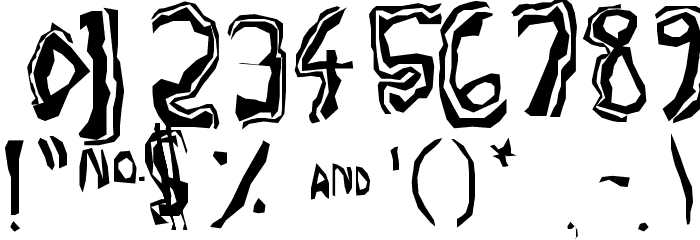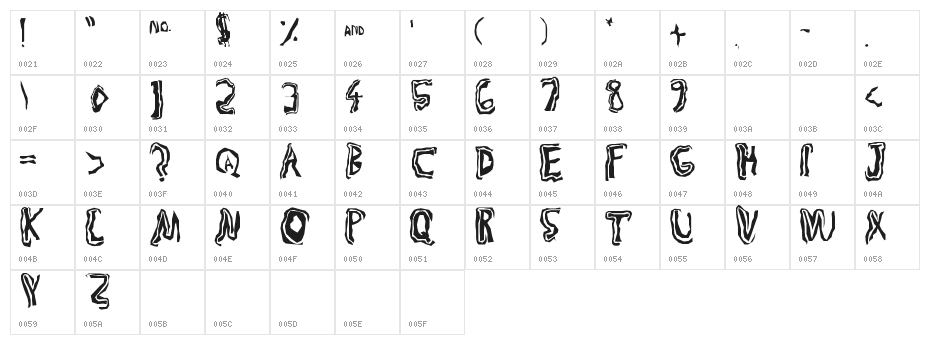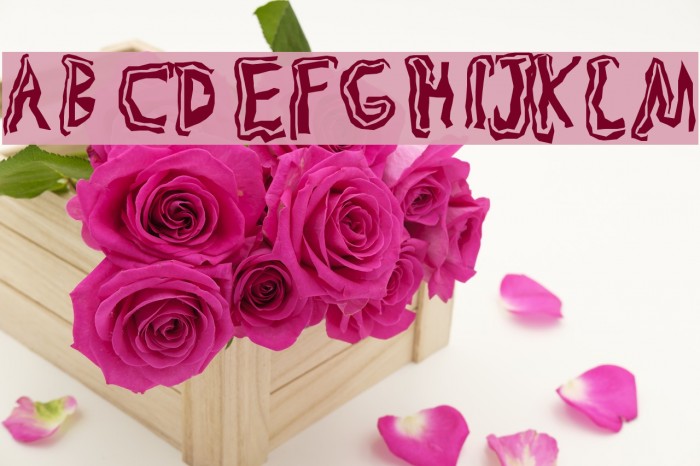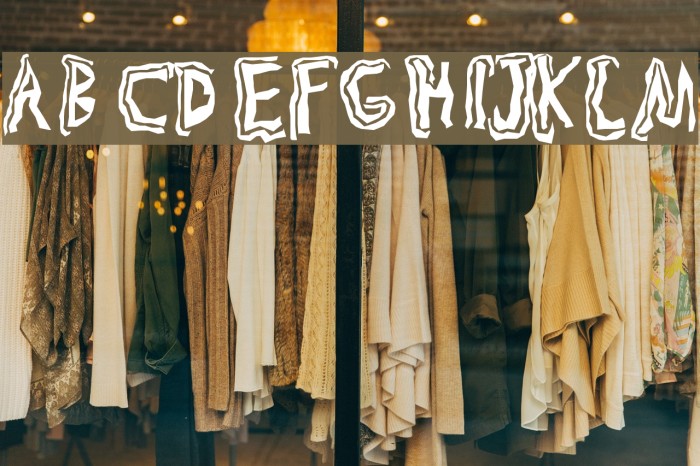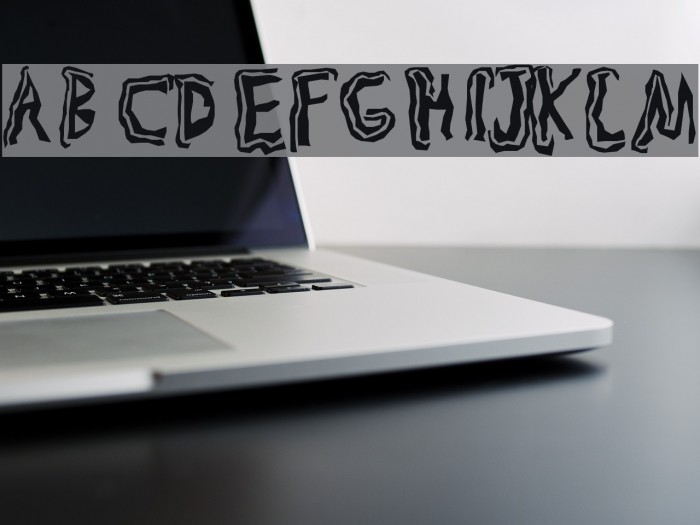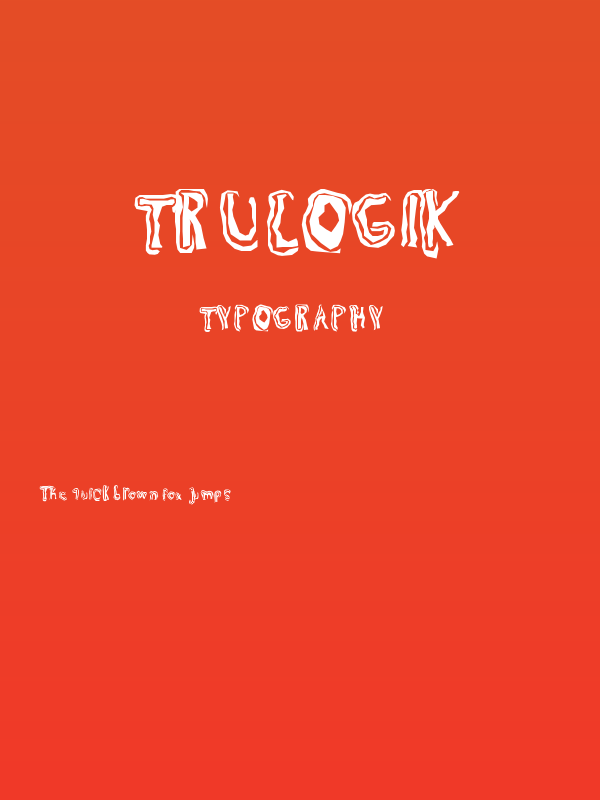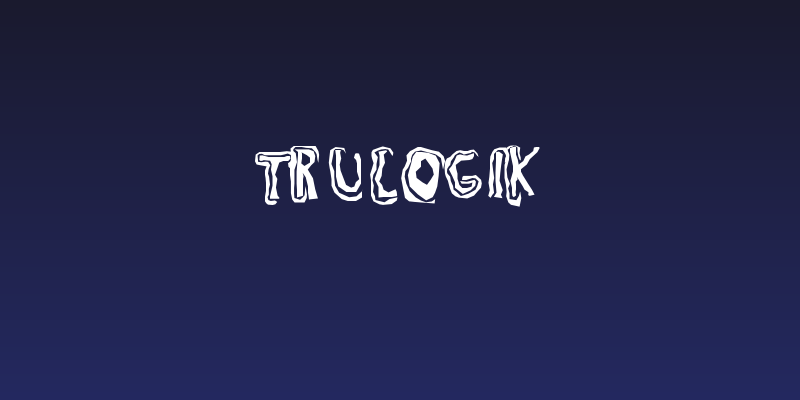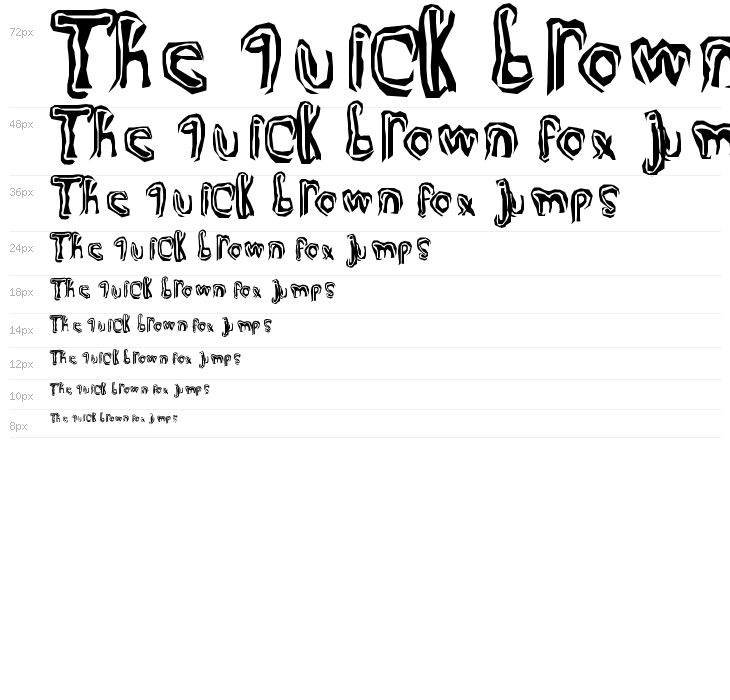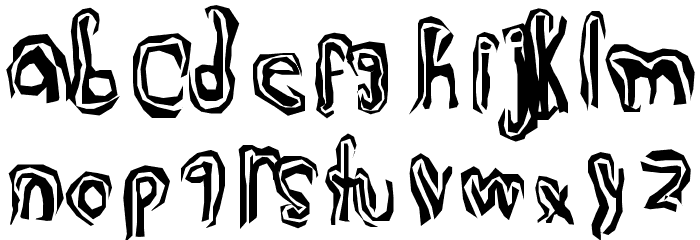
TruLogik Font
TruLogik Description
This font features a highly unique and artistic style, characterized by its irregular, jagged edges and bold, abstract forms. The letters appear as if they are hand-drawn with a rough, uneven stroke, giving them a dynamic and energetic feel. Each character is distinct, with varying thickness and an almost three-dimensional appearance, creating a sense of movement and depth. The font's unconventional design makes it stand out, with a playful yet edgy aesthetic that captures attention. Its boldness and irregularity suggest a rebellious or avant-garde theme, making it suitable for creative and unconventional projects.
| Proposed Projects | Ideal for album covers, street art-inspired designs, edgy branding, and creative posters. |